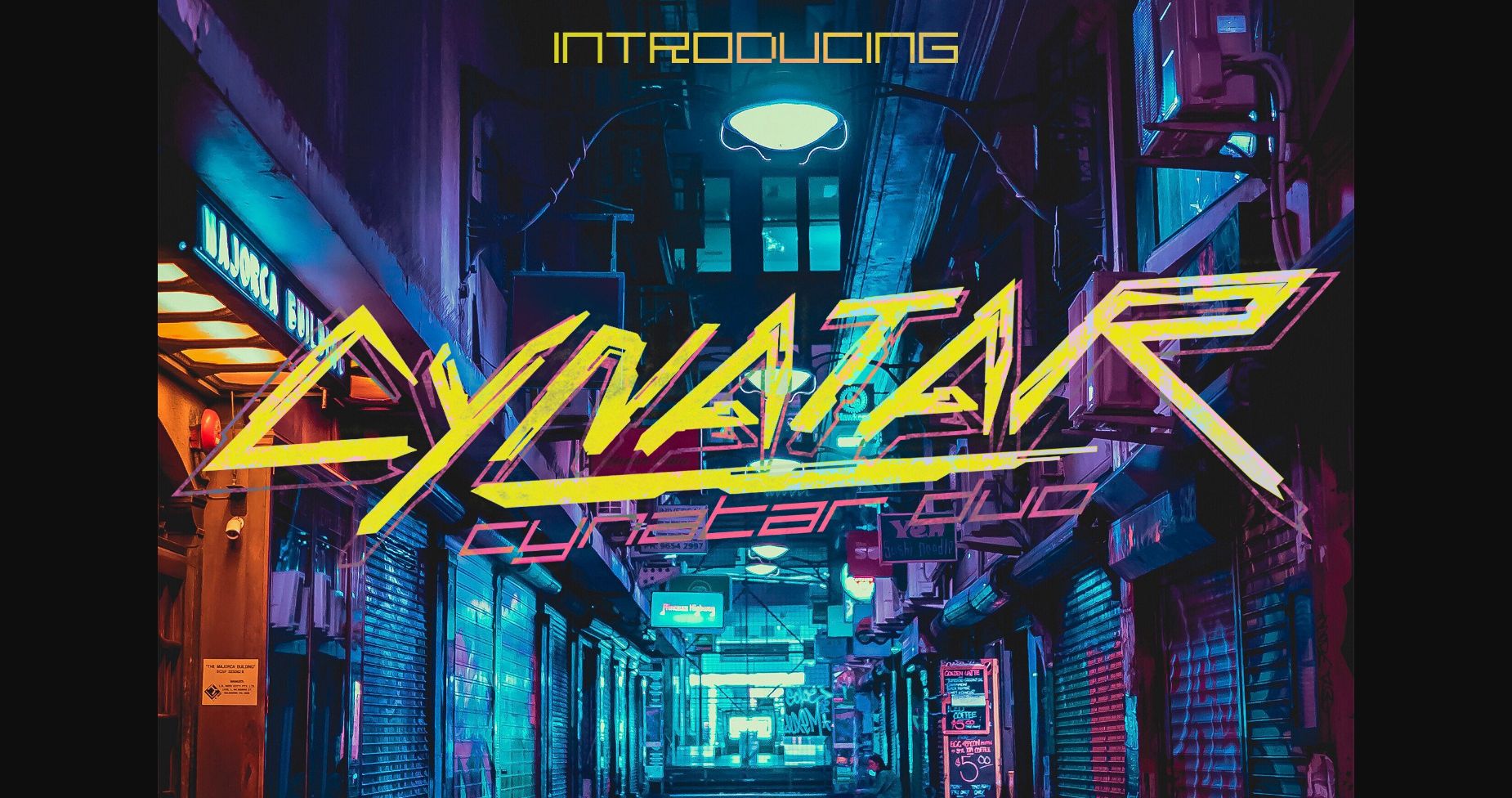
Cynatar Font
About Cynatar Font
Cynatar font duo is a bold display font ideal for loud messages. Very interesting to use for logos, name tags, handwritten quotes, product packaging, merchandise, social media & greeting cards. Also ideal to make t-shirt designs and other clothing products.